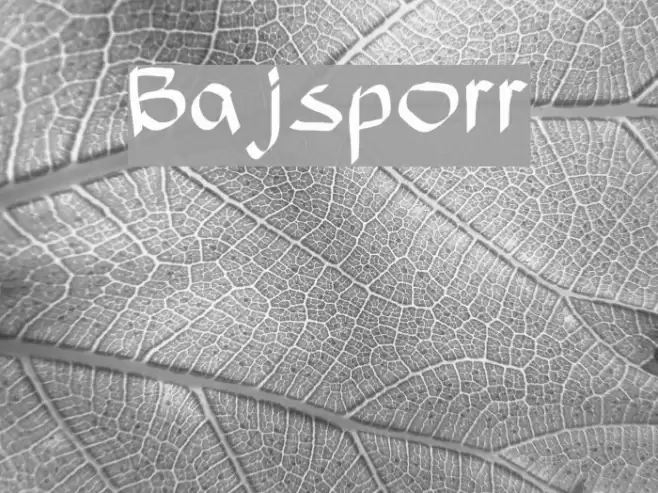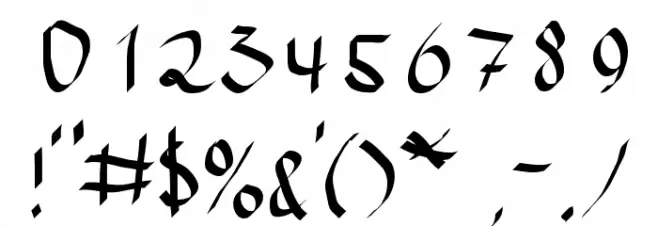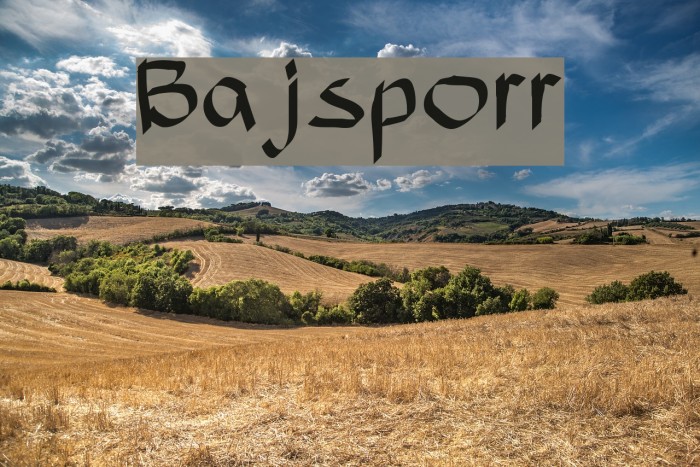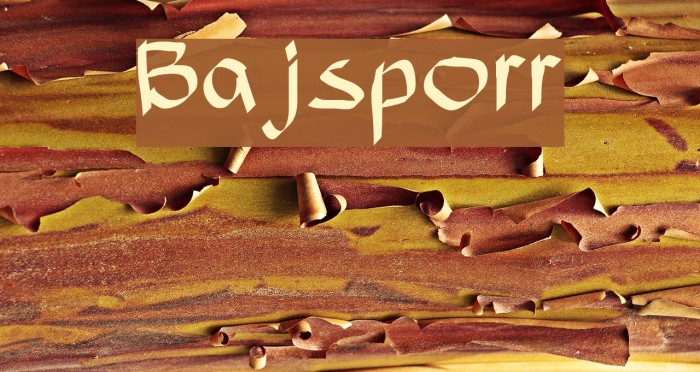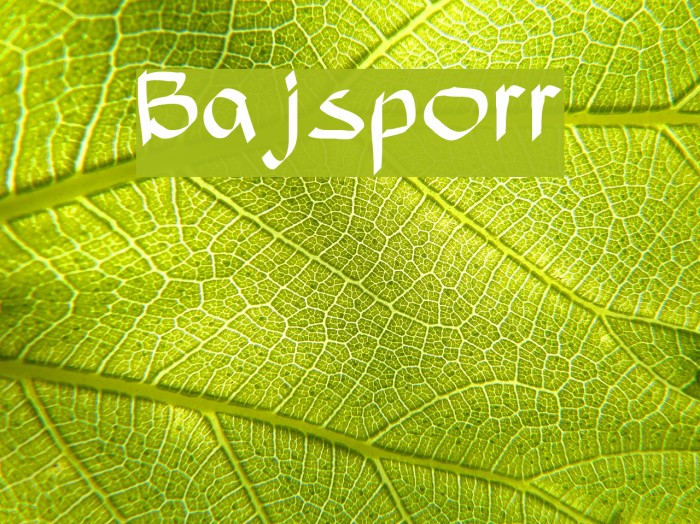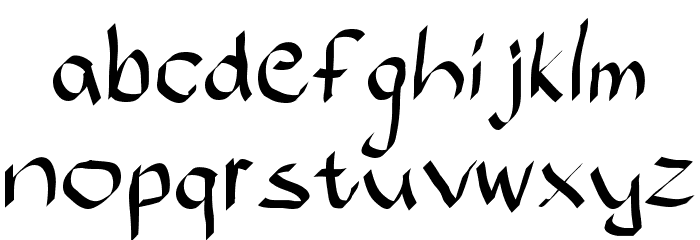
Bajsporr Font
Bajsporr Description
This font features a dynamic and expressive style, reminiscent of brush strokes with a calligraphic influence. The letters have a distinct angularity, giving them a sharp and edgy appearance. The uppercase and lowercase characters maintain a consistent flow, with varying stroke thickness that adds a sense of movement and energy. The numerals and special characters are crafted with the same artistic flair, ensuring a cohesive look across all glyphs. This font is ideal for projects that require a bold and artistic touch, capturing attention with its unique and creative design.
A dynamic, brush-stroke inspired font with angular, calligraphic elements from Handwritten fonts.
- Proposed Projects: Ideal for artistic posters, branding, album covers, and creative invitations.
- Use Case: Headlines, Logos, Artistic projects